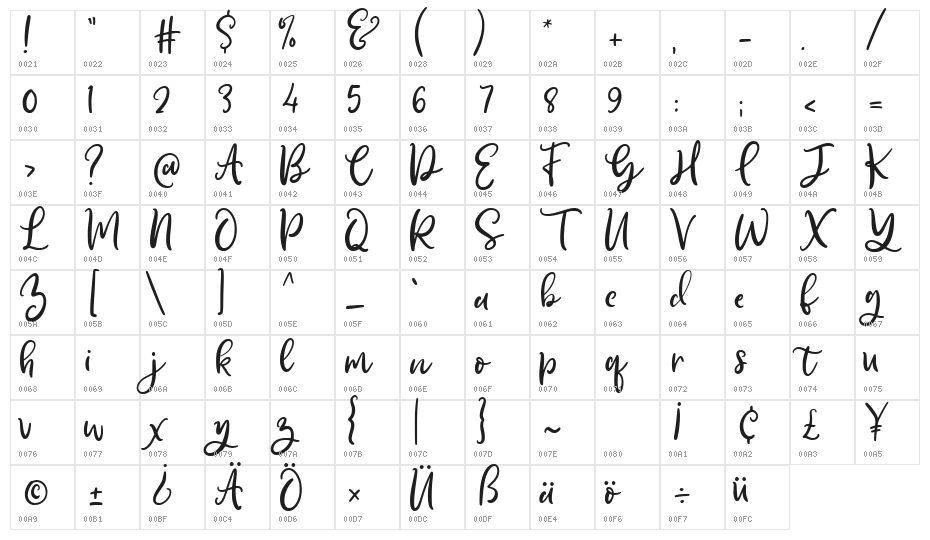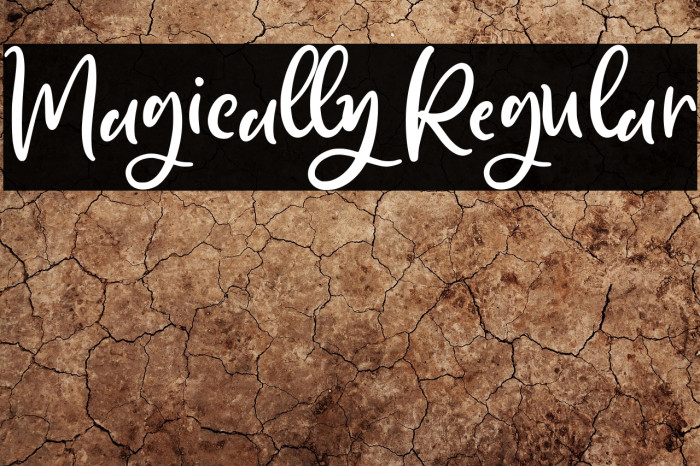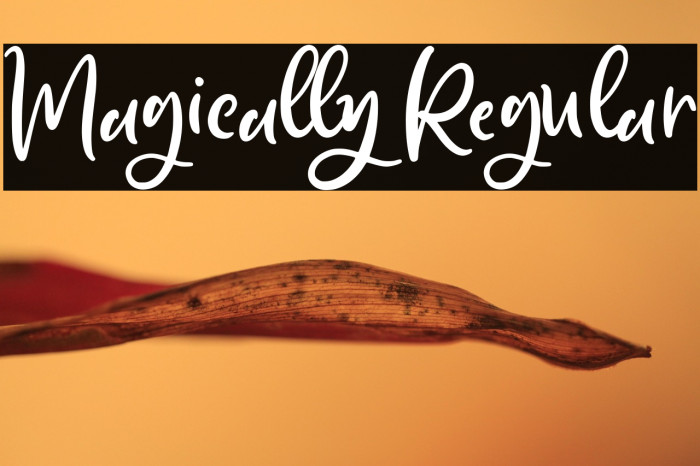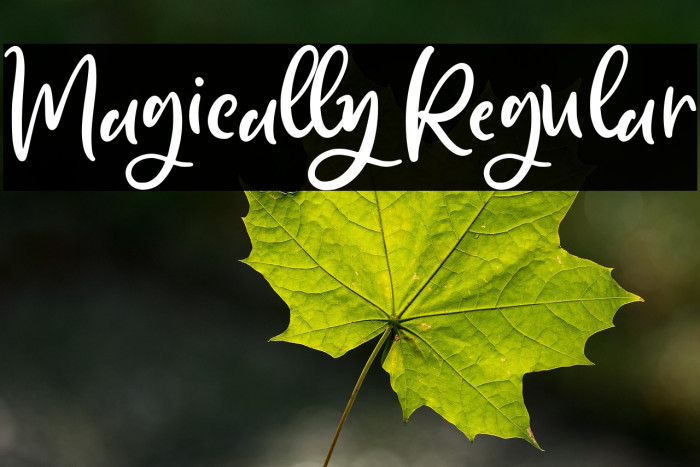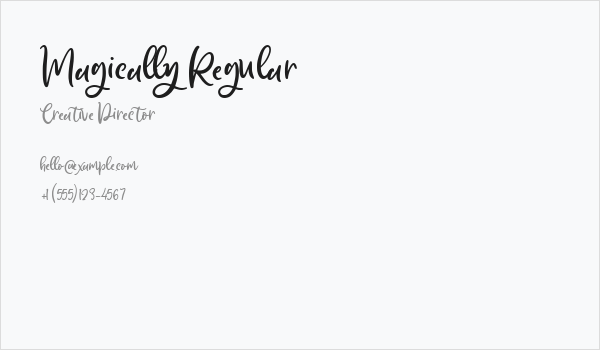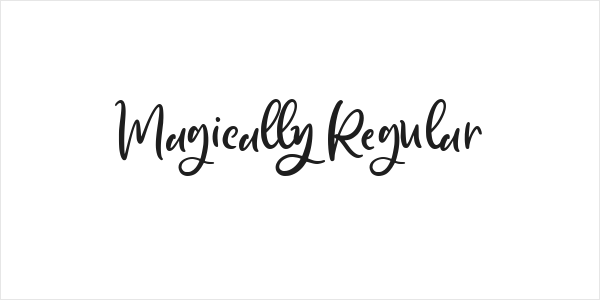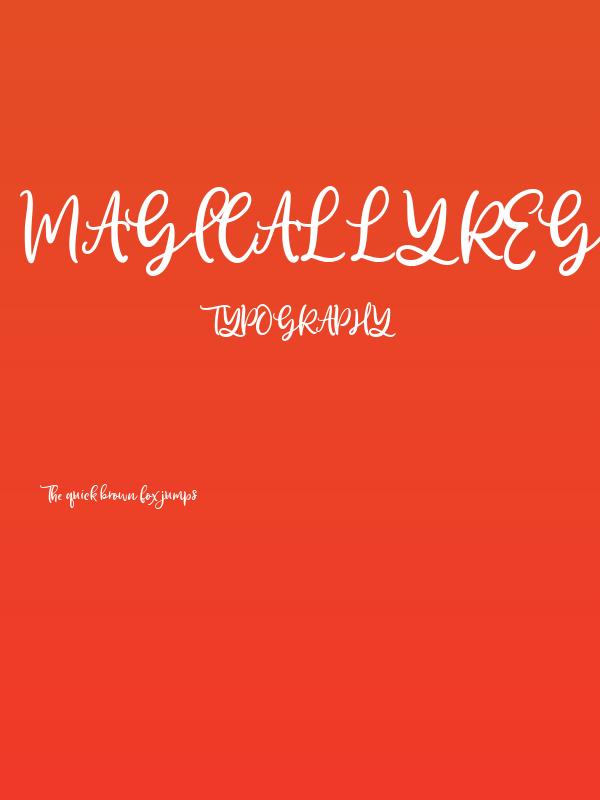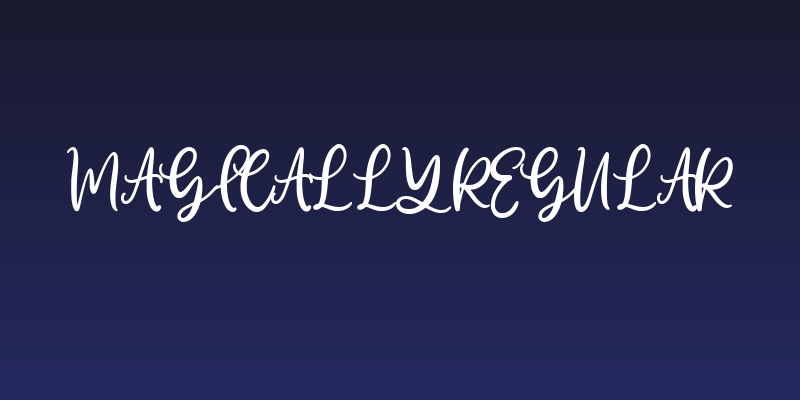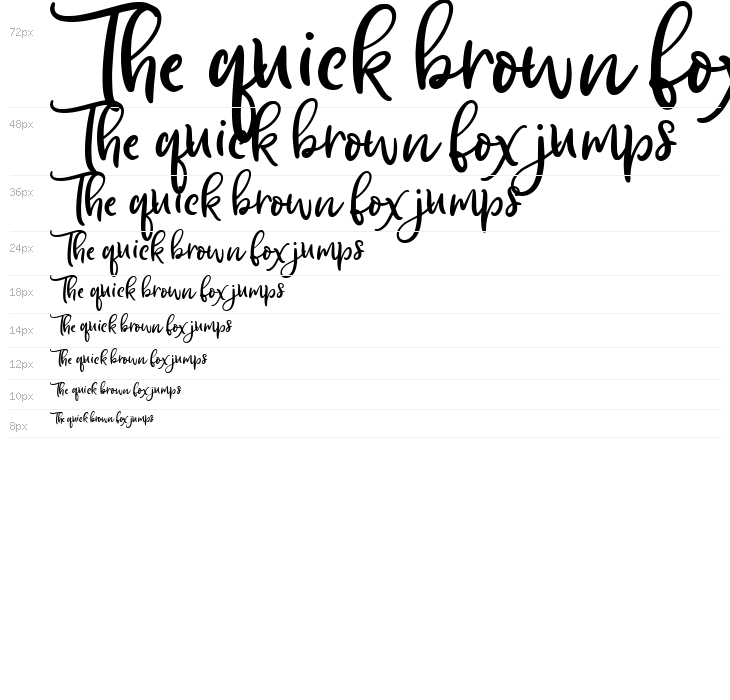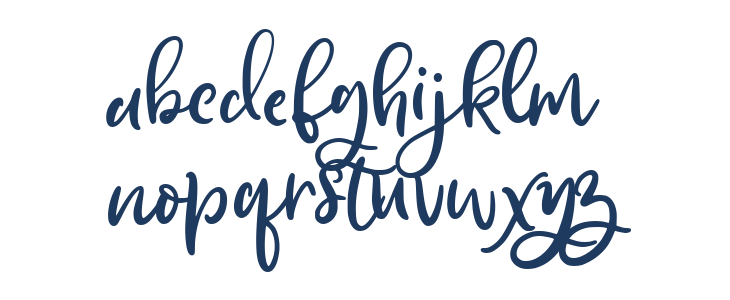
Magically Regular Font
Magically Regular Description
This font exudes a playful and whimsical charm, characterized by its flowing, cursive style. The letters are interconnected with smooth, sweeping strokes that give it a handwritten feel. The uppercase letters are bold and expressive, while the lowercase letters maintain a consistent fluidity. Numbers and special characters are crafted with the same artistic flair, ensuring uniformity across all elements. The overall appearance is both elegant and casual, making it suitable for creative projects that require a personal touch.
| Use Case | Logos, Headlines, Invitations |
| Proposed Projects | Ideal for greeting cards, invitations, personal branding, and creative social media graphics. |